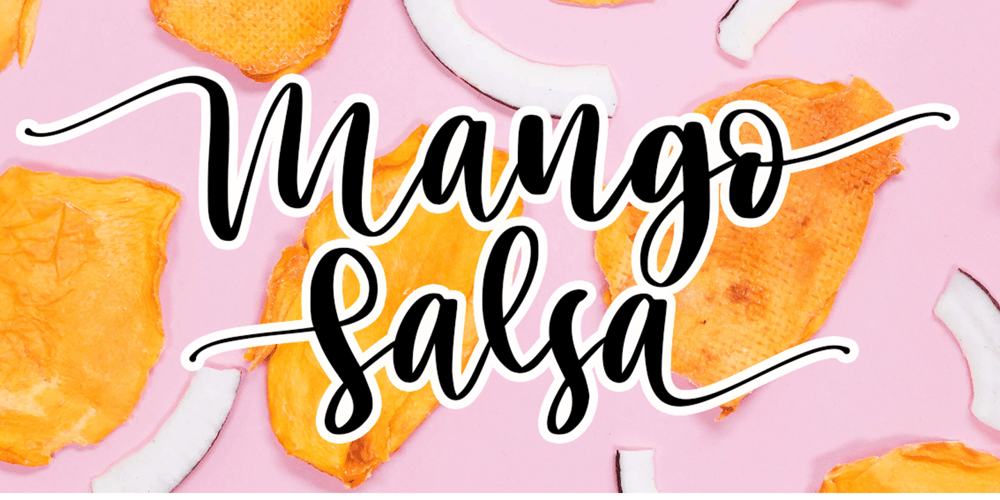
Mango Salsa
Mango Salsa font
Mango Salsa Font Family was designed by Sarwo Edhi Prayitno and published by Haksen. Mango Salsa contains 1 styles and family package options. A handwritten font with bouncy script style Specifics: Cute and pretty style with swashes alternate in lowercase and titles alternate in uppercase Numerical, Punctuation, Multi language included Happy Designing!